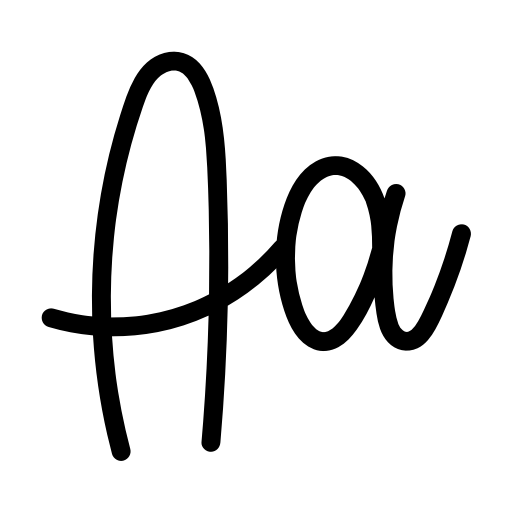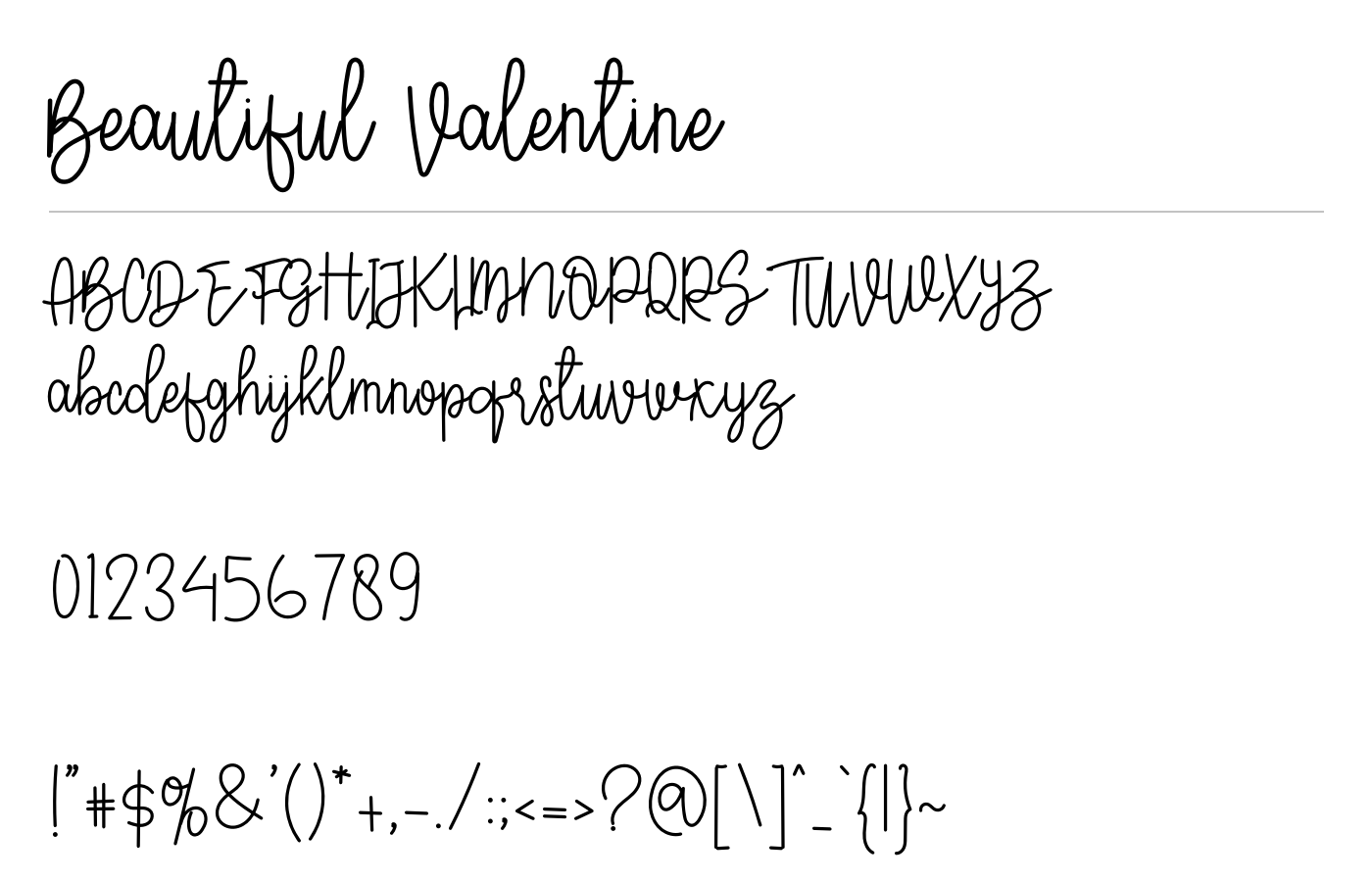
Beautiful Valentine Font is a delicate, handwritten script with a casual yet elegant feel, featuring tall, narrow letters with smooth, rounded strokes. Its light weight and playful curves make it ideal for romantic or personal designs, perfect for invitations, greeting cards, and branding that aims for a warm, friendly touch. This font shines in creative projects where a soft, approachable, and charming style is desired.
Beautiful Valentine Font